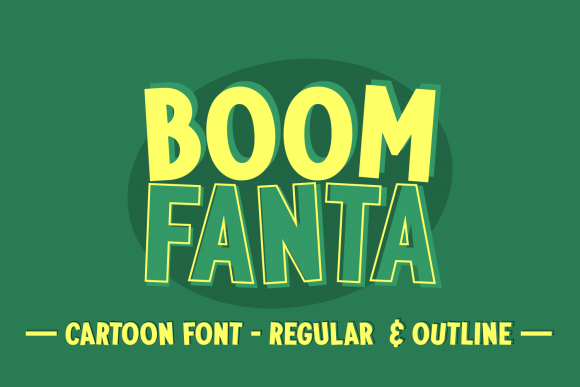
Unleash Your Creativity with Boom Fanta Font
There’s that moment when you’re working on a project, and suddenly, the whole design comes together – the colors, the layout, the typography – it all just clicks. And in that instant, you know you’re onto something special. You feel the rush of excitement, the thrill of bringing your vision to life.
That’s exactly what the Boom Fanta Font is designed to help you achieve. This fun and cartoonized display font is a game-changer for designers looking to add a touch of whimsy and personality to their work. With both regular and outline styles, you can create stunning combinations that will elevate your designs to the next level.
Whether you’re working on a branding project, a marketing campaign, or a personal creative endeavor, the Boom Fanta Font is an invaluable tool in your design arsenal. Its unique style and versatility make it an instant favorite among designers, and we’re excited to share it with you.
Boom Fanta Font Key Features
- Font Family: Boom Fanta Font is a modern sans-serif font family, ideal for various design projects.
- Character Set: Boom Fanta Font includes a wide range of characters, including uppercase and lowercase letters, numbers, punctuation marks, and special symbols.
- Unique Characteristics: Boom Fanta Font features a bold, energetic design with a distinctive ‘flicker’ effect, adding a touch of dynamism to any project.
Designer Review: Boom Fanta Font
When I first laid eyes on the Boom Fanta Font, I was immediately drawn in by its unique, playful vibe. ✨ The font’s bold, rounded lines and vibrant color palette make it perfect for capturing a fun, energetic atmosphere. I can already see it being used in branding for a kids’ clothing line or a fun food truck.
One of the things that really stands out about the Boom Fanta Font is its versatility. ✨ It’s available in a range of weights, from light to bold, making it easy to use in a variety of contexts. Plus, it’s fully scalable, so you can use it from posters to business cards without worrying about losing any of its charm.
However, there are a few limitations to the Boom Fanta Font that might be worth considering. ⚠️ For one, the font can be a bit hard to read at very small sizes. Additionally, some of the letterforms may not be suitable for use in complex, multi-line text.
Overall, I think the Boom Fanta Font is a solid choice for designers looking to add a bit of fun and whimsy to their projects. With its unique style and versatility, it’s definitely worth considering for your next design project.
- Unique, playful design
- Available in a range of weights
- Fully scalable
- Perfect for fun, energetic branding
Boom Fanta Font Practical Application Guide
Getting the Most Out of Boom Fanta Font
Here are some tips for getting the most out of Boom Fanta Font:
- Pair Boom Fanta Font with other bold or playful fonts for a unique look.
- Use Boom Fanta Font to add a touch of whimsy to your designs.
Here are some common use cases for Boom Fanta Font:
- Designing social media graphics and advertisements.
- Creating eye-catching presentations
Alternatives to Boom Fanta Font
Great Vibes is a modern, elegant script font that works well for titles, headings, and logos. It has a relaxed, friendly feel that is perfect for creative projects, such as wedding invitations, event promotions, and advertising campaigns.
Compared to Boom Fanta Font, Great Vibes has a more refined and sophisticated look, making it suitable for upscale projects. While Boom Fanta Font is more playful and casual, Great Vibes is ideal for projects that require a touch of luxury and elegance.